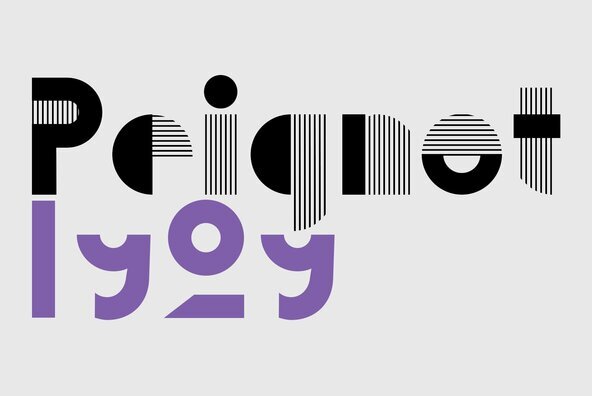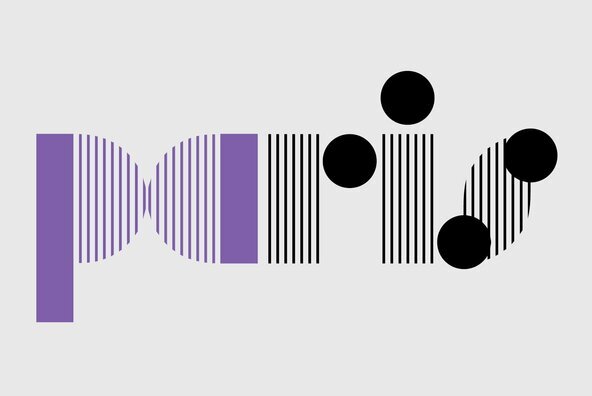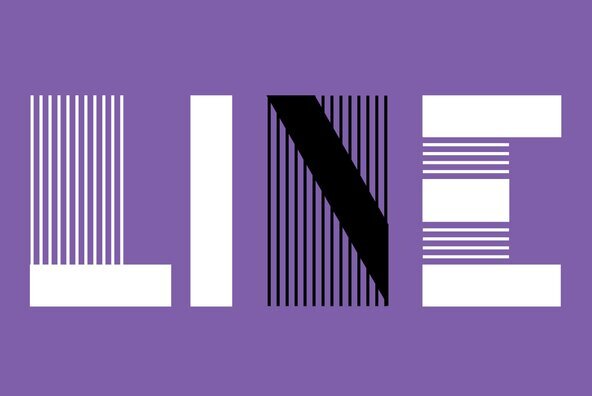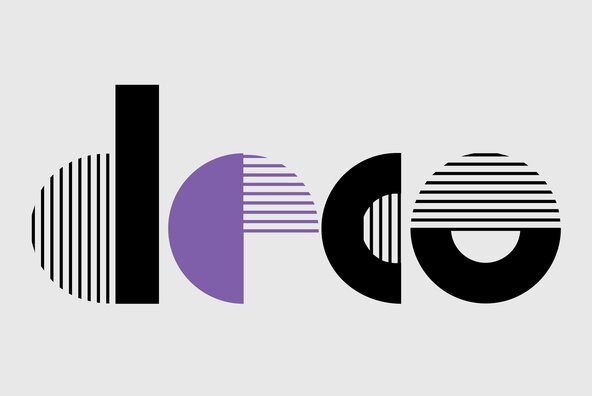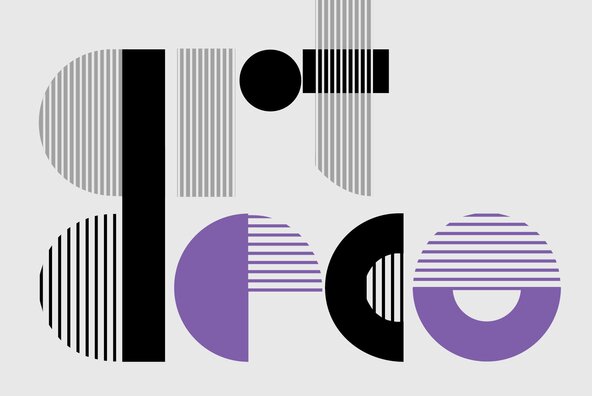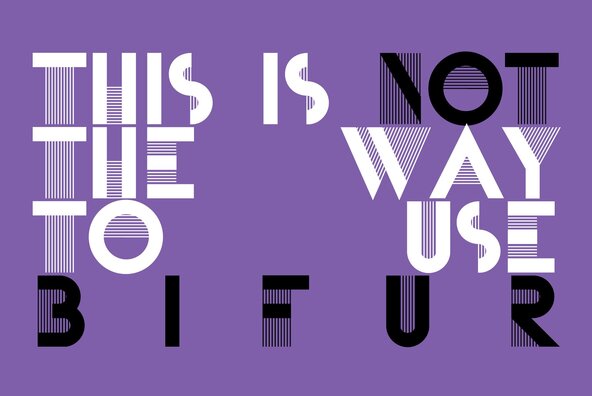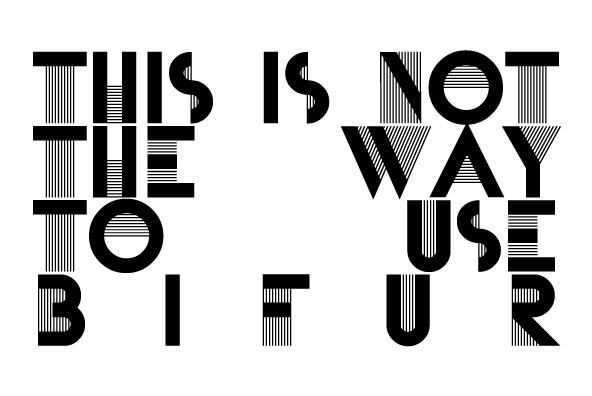
P22 Bifur
Bifur was originally designed by poster artist A.M. Cassandre. This Art Deco type design was issued by the French foundry Deberny & Peignot in 1929. Even upon it's original release and promotion, suggestions on how not to use Bifur were presented. As with most highly decorative display faces, the use should be selective and used sparingly. Of course the layout of "THIS IS NOT THE WAY TO USE BIFUR" in repeated paragraph form has become a famous design and appears in many surveys of design history.
Bifur (abbreviation of Bifurcation: a division into two parts) was originally designed as a single font (cut in several sizes with the number of parallel lines increasing as the point size increased) and also as a two-part font that could be printed in two solid colors. Cassandre only designed the upper case characters, numbers and basic punctuation. The "bifurcation" occurs with the bold "keyline" being the most basic recognizable element in the Letter ( Z and N being simply a diagonal line) and the secondary part being a solid shape or a tone created with the parallel lines). It was fairly popular (although not a financial success) and often imitated for display lettering. Occasionally these imitations made some innovations but mostly they were poor substitutes. One imitator attempted a lower case. This was used as a starting point for the P22 version which adds a lower case while keeping the upper case and all original characters true to the original Cassandre design.
The 6 font family of P22 Bifur was created with a range of uses in mind. P22 Bifur A features wide lines and line spacing. This is intended to be used at 48 points and larger. P22 Bifur B features narrow lines and line spacing. This is intended to be used at 100 points and larger. P22 Bifur C features only the Keyline. Upper case could be used by itself for experimental typography, but this is intended to be used as a companion to P22 Bifur D, E or F) To use the two-part fonts see "DESIGN TIP" below. P22 Bifur D features the solid counter shapes to accompany P22 Bifur C. P22 Bifur E features the wide line option to accompany P22 Bifur C. P22 Bifur F features the narrow line option to accompany P22 Bifur C.
Design Tips: When using the two part Bifur fonts (P22 Bifur C along with either D,E or F), the best way to start is typing your text using a fully legible font (or A or B). The two part fonts can be done in any page layout program that supports layering (Illustrator, Freehand, Photoshop, Corel Draw). After typing your text, select one of the Bifur fonts and arrange the size and layout as desired. If you set up horizontal and vertical guidelines, you can move the text box to "snap" into a corner. You can then copy the text box and change the Bifur font to it's companion font. If you drag the second text box to the same guidelines, the two should be aligned perfectly one on top of the other. If the wrong one is on top then send it to the back. You can then group the two text boxes and move them together to the prefered area of your design.